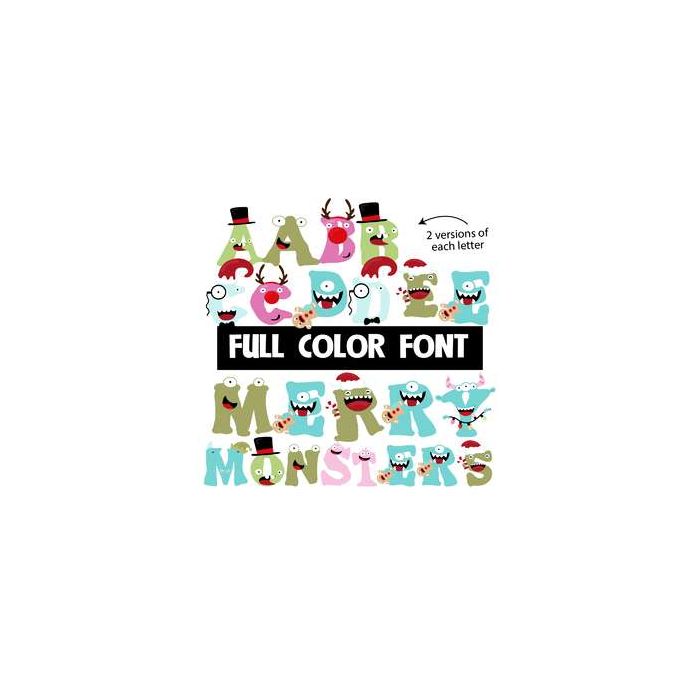
This full-color font features Christmas monsters in all the merry monster glory. This font works best for titles, displays, posters and more. Please note color fonts will show as black in non compatible programs. This font type is compatible with Silhouette Studio.